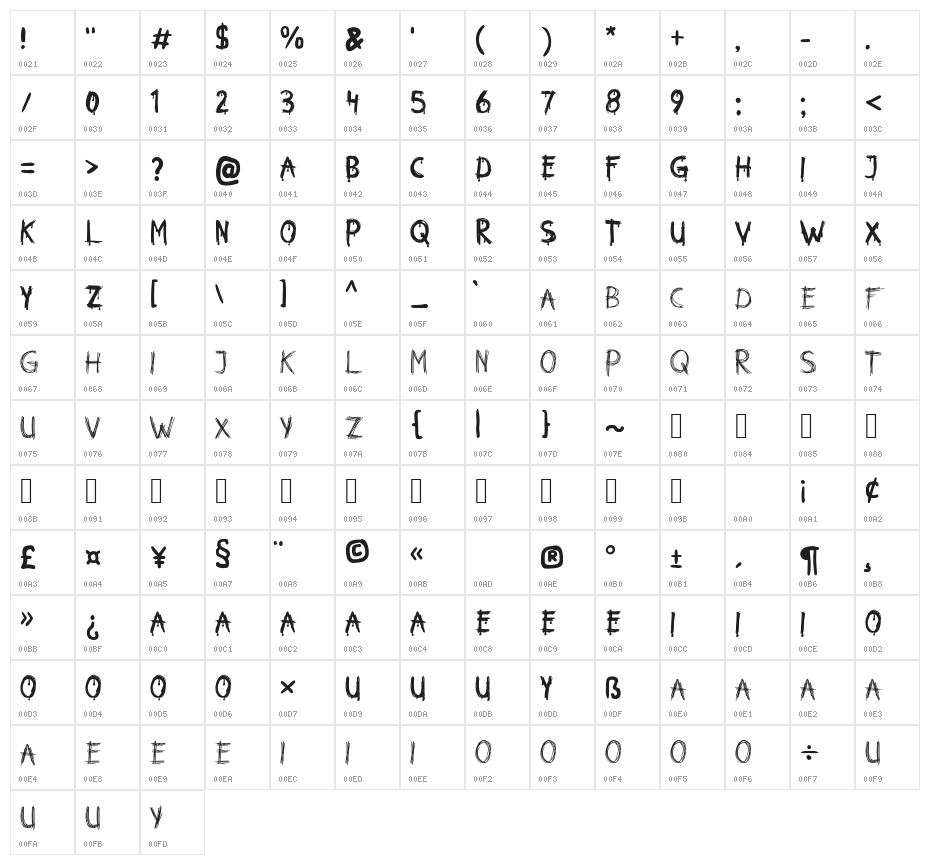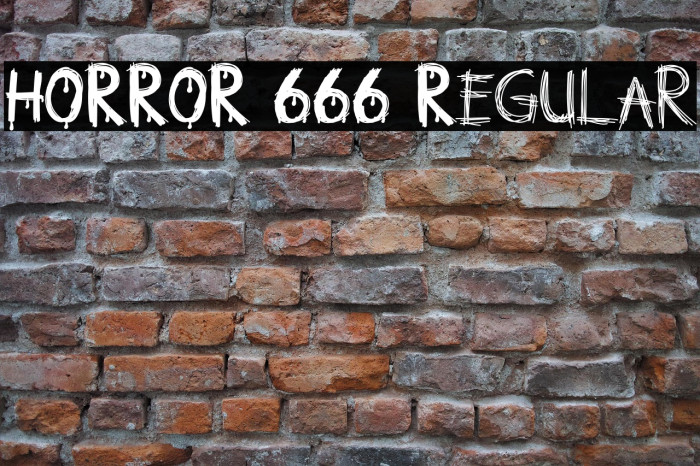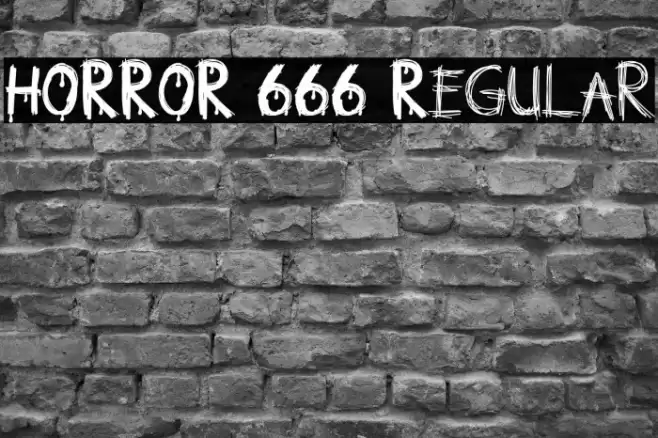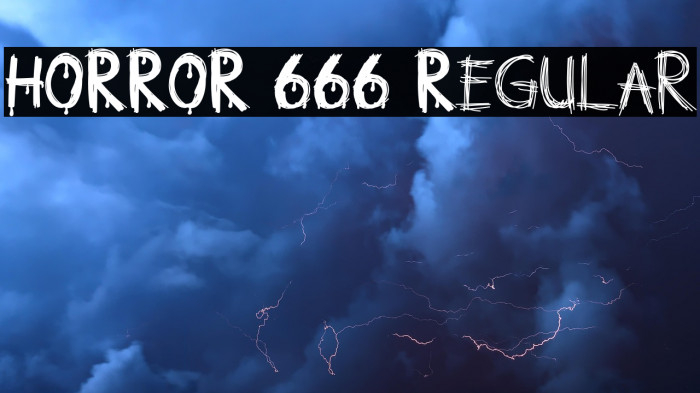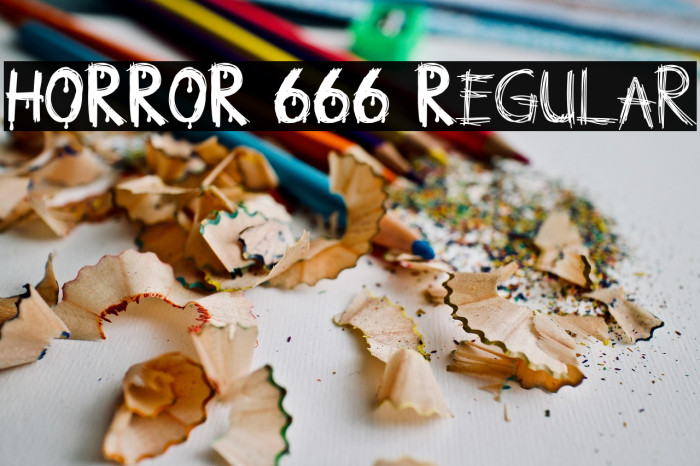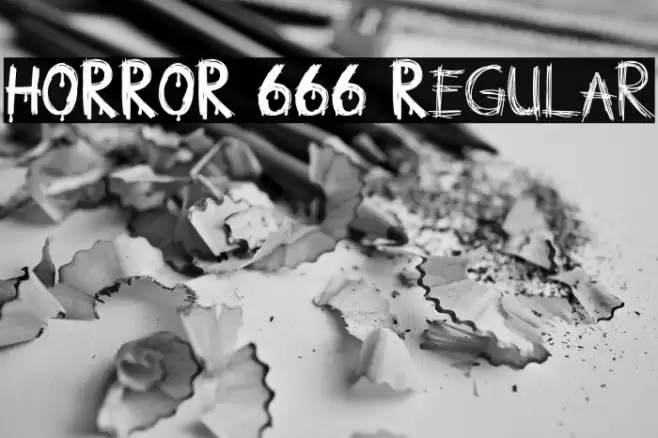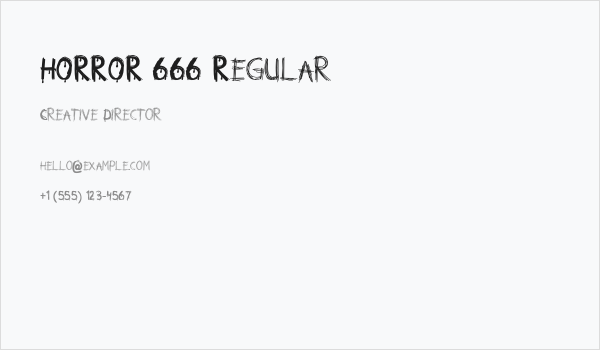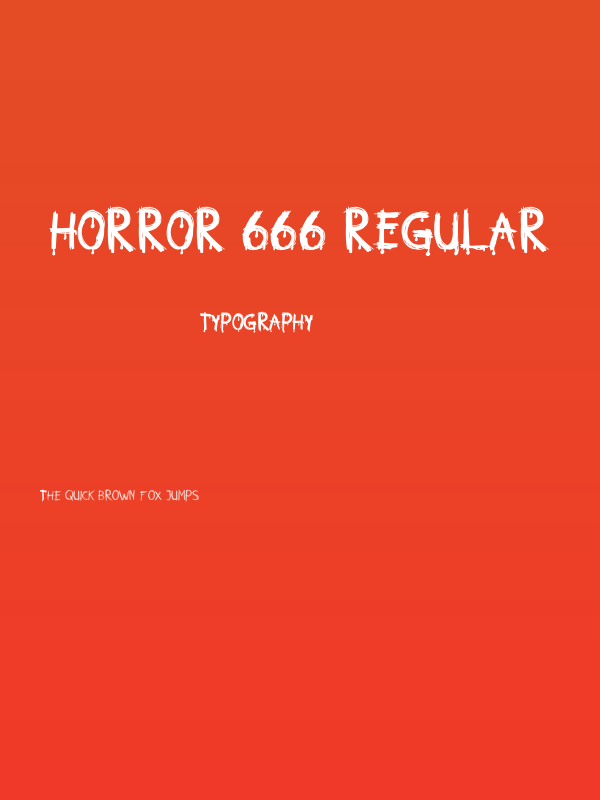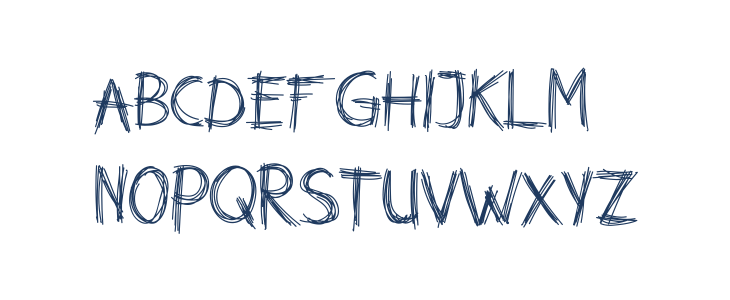
HORROR 666 Regular Font
HORROR 666 Regular Description
This font exudes a chilling and eerie vibe, perfect for horror-themed projects. It features jagged, uneven strokes that mimic the appearance of scratches or claw marks, giving it a distressed and unsettling look. The uppercase and lowercase letters maintain a consistent style, with sharp edges and irregular lines that enhance its spooky aesthetic. The numerals and special characters follow the same design principles, ensuring a cohesive appearance across all text elements. This font is ideal for creating a sense of fear and suspense, making it a great choice for Halloween events, horror movie posters, or any project that requires a touch of the macabre.
| Overall Style | Horror, Distressed, Eerie |
| Use Case | Headlines, Posters, Themed Events |
| Proposed Projects | Horror movie posters, Halloween event flyers, spooky-themed invitations, haunted house signage. |